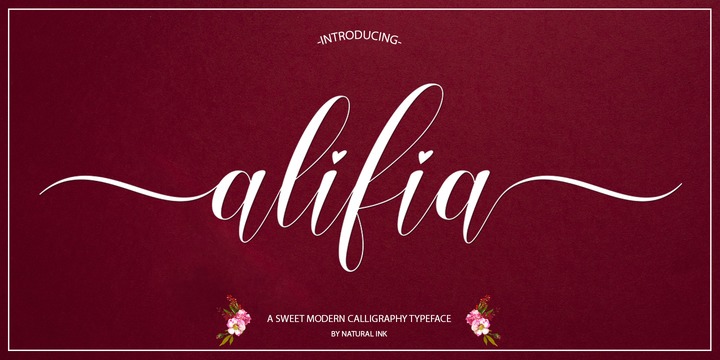
Alifia Font
Alifia Font is perfect for elegant wedding invitations, luxury script branding, romantic greeting cards, feminine boutique signage, calligraphy workshops, sophisticated stationery designs, high-end fashion labels, graceful event materials, delicate cosmetic packaging, and refined personal branding.
What makes Alifia Font so exciting is its extraordinary ability to embody pure feminine elegance and graceful sophistication through flowing script letterforms that seem to dance across the page with effortless beauty and romantic charm. This exquisite typeface captures the essence of delicate artistry and refined femininity with characters that radiate warmth, elegance, and timeless grace. The font's sophisticated design elements perfectly balance handcrafted authenticity with contemporary appeal, creating an indispensable tool that communicates beauty, romance, and refined taste, making it essential for brands and projects that celebrate feminine elegance and sophisticated style.
Alifia Font comes in multiple font families including Regular, Bold, Light, Swash, Alternates, Flourished, Elegant, and Romantic variations. Each family member maintains the core graceful characteristics while offering different elegance levels and stylistic approaches to suit various feminine design requirements.
The calligraphic precision in Alifia Font makes it particularly suitable for luxury markets and feminine brands where conveying authentic elegance and sophisticated taste is essential for connecting with style-conscious clientele. Its flowing letterforms maintain excellent readability while preserving the romantic charm that appeals to customers seeking beautiful, meaningful design experiences and elegant lifestyle products.
Luxury branding professionals appreciate how Alifia Font transforms ordinary text into beautiful expressions of feminine grace and sophisticated elegance. The typeface's graceful character set includes special decorative swashes, elegant ligatures, and romantic alternates that enhance the overall sophisticated atmosphere of any feminine-focused project.
For creative professionals serving luxury fashion, wedding industries, and feminine lifestyle brands, Alifia Font serves as the perfect foundation for establishing memorable visual identities that capture the essential qualities of feminine elegance, romantic beauty, and sophisticated grace that define successful brands appealing to discerning women who appreciate authentic style and timeless beauty.